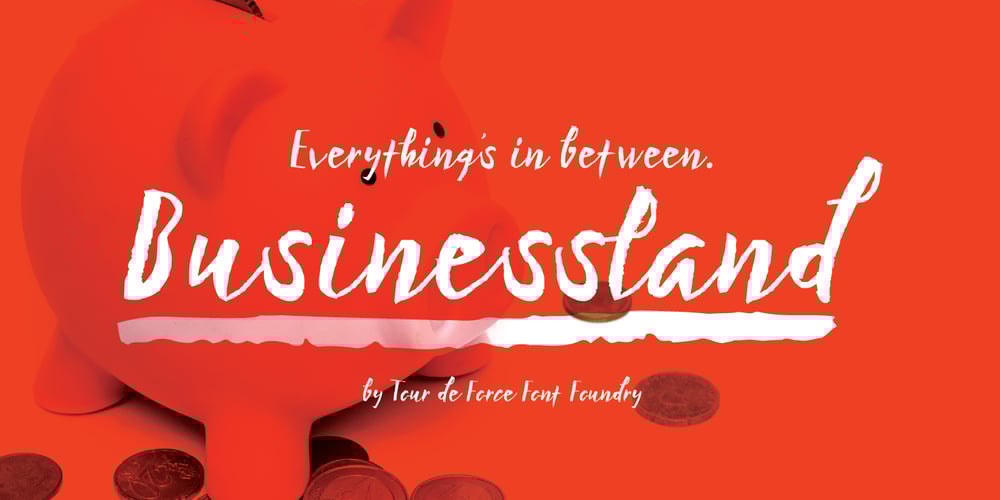
Businessland Font Family was designed by Dusan Jelesijevic and published by Tour De Force. Businessland contains 1 styles and family package options. Businessland is script family that combines elegant and rough look of the characters. Contains 372 glyphs including codepage support for Eastern Europe and Baltic countries.